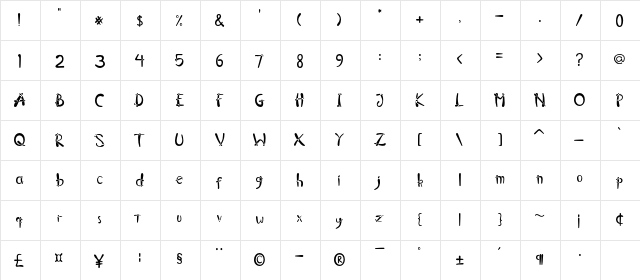
Anxient Regular
Design Context for Anxient Typeface
Anxient is a composed and adaptable typeface that performs quietly and consistently across a wide range of design contexts.